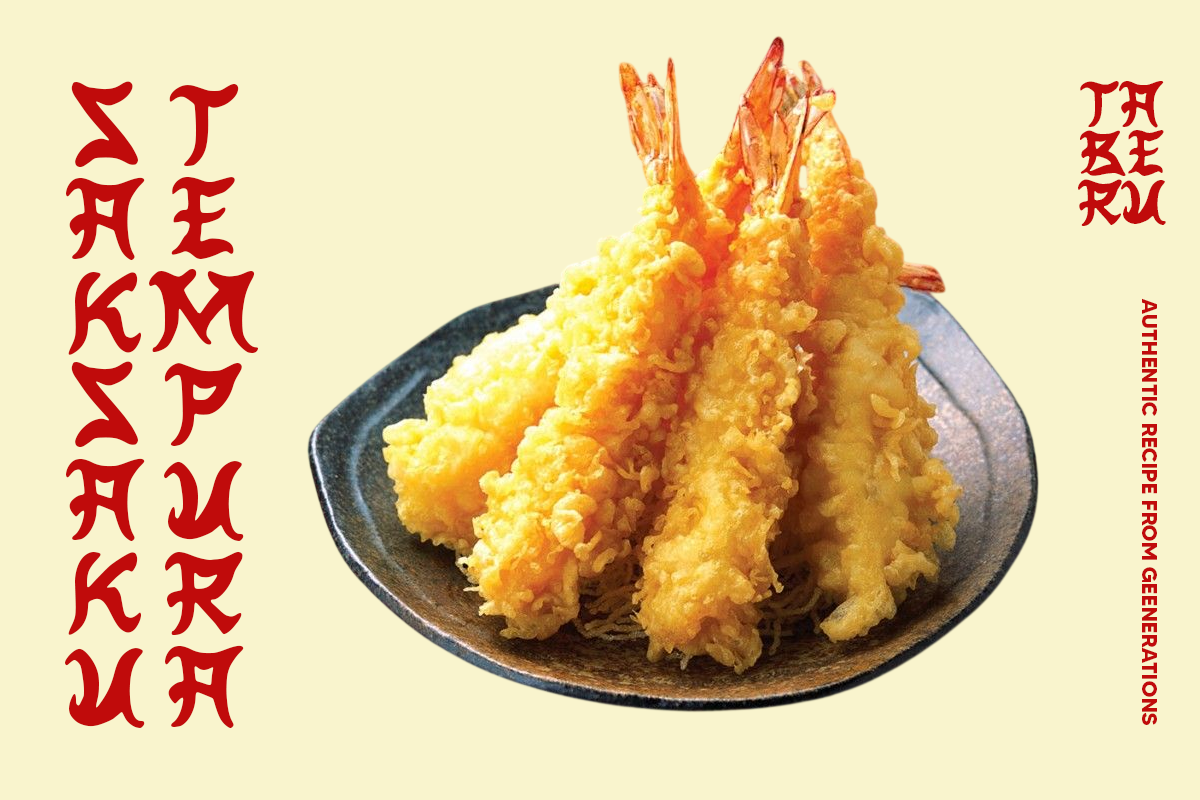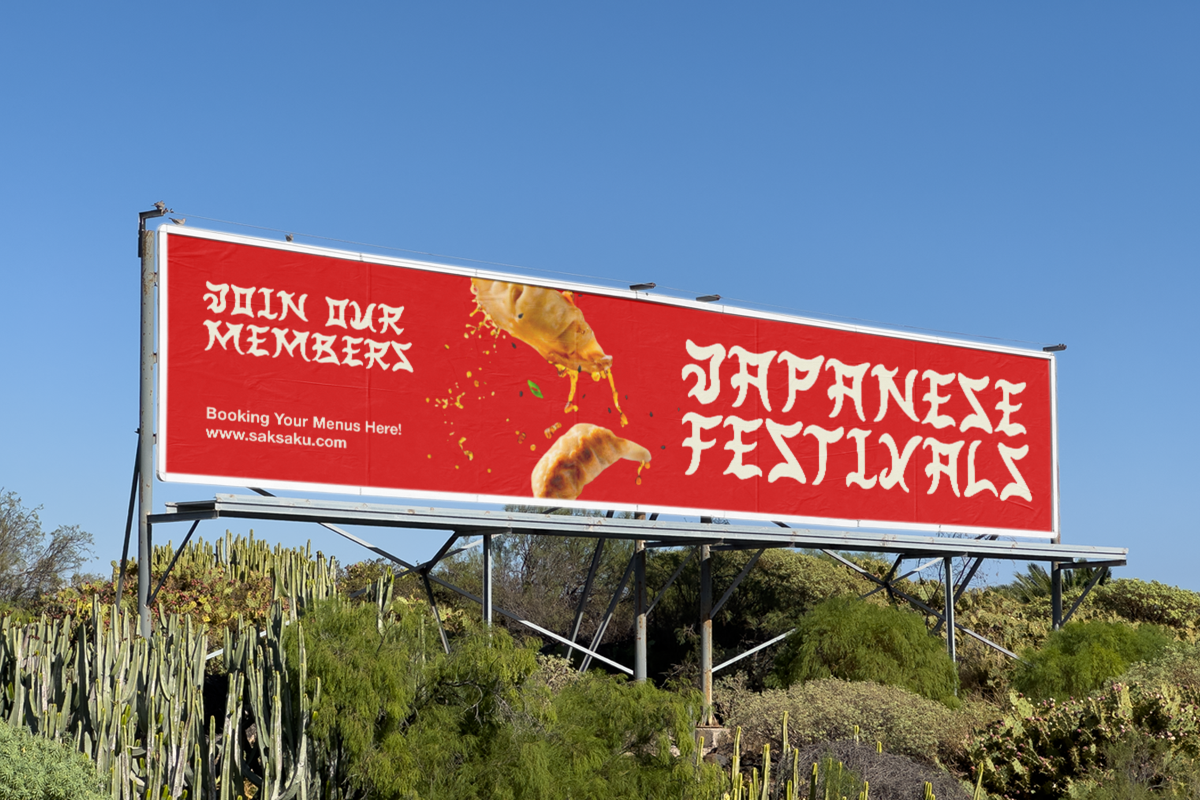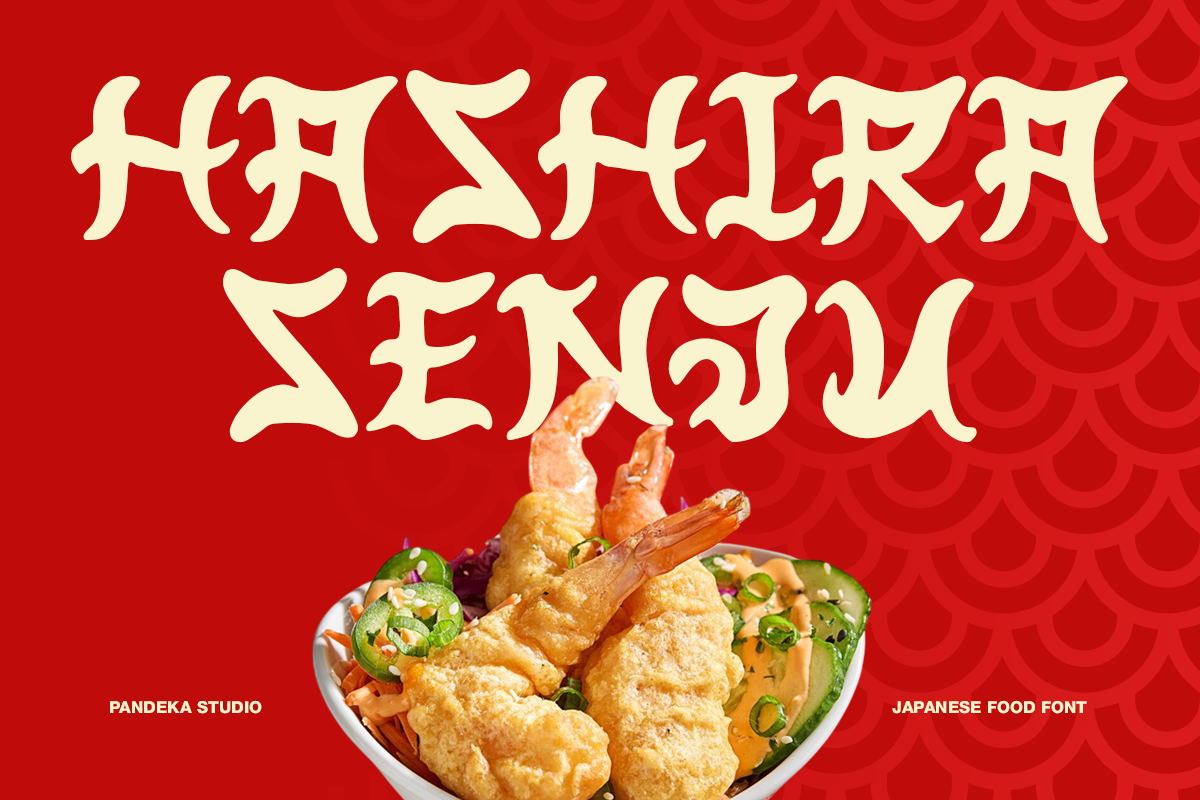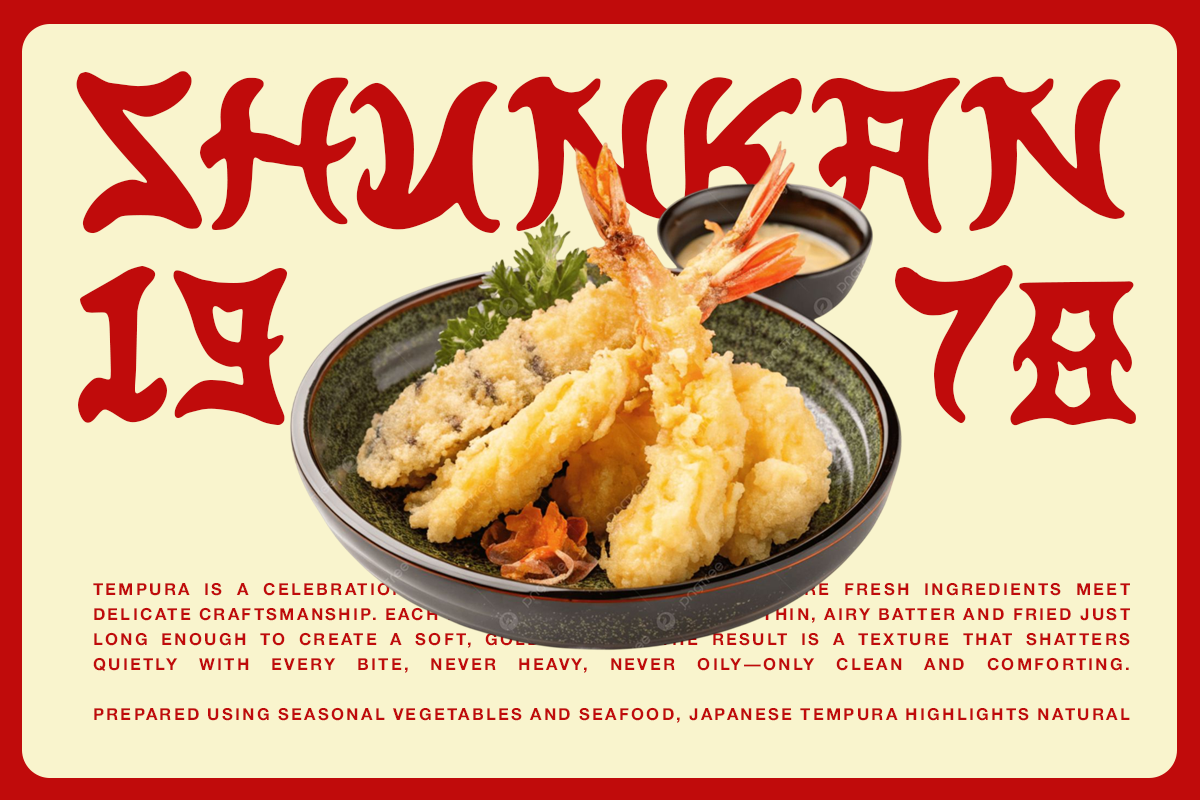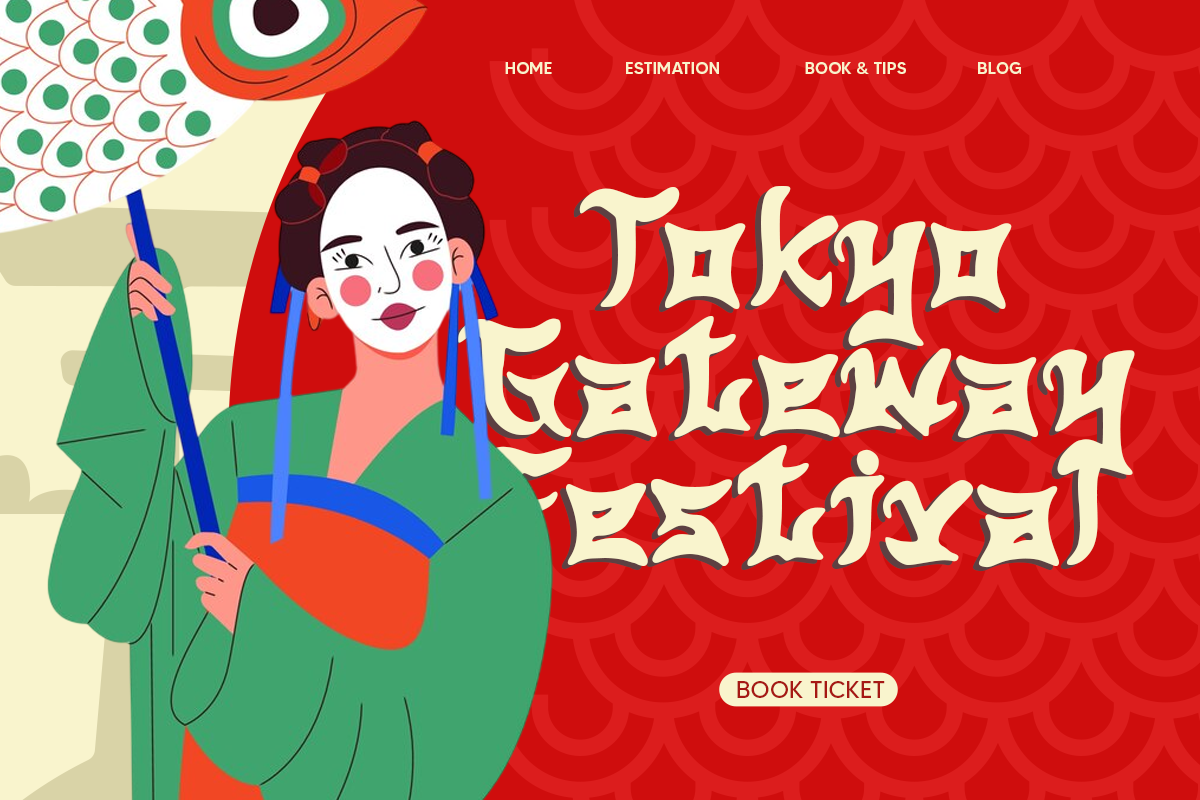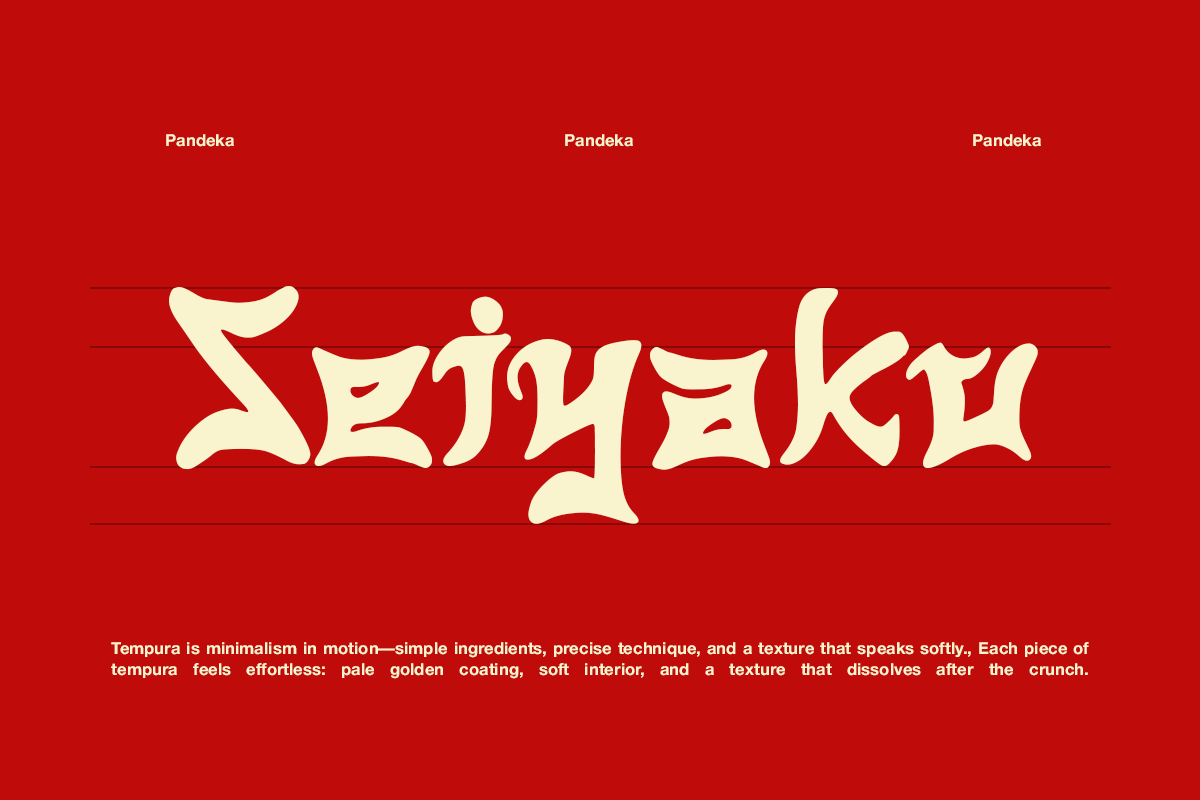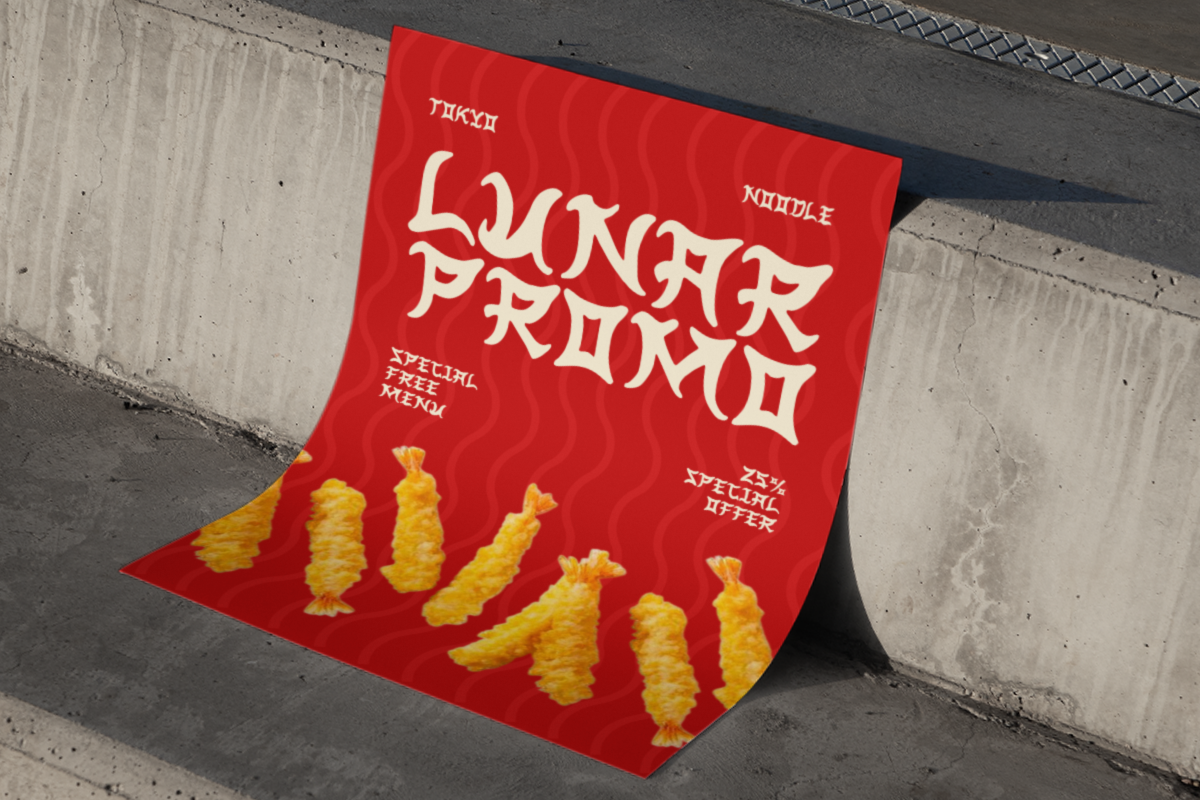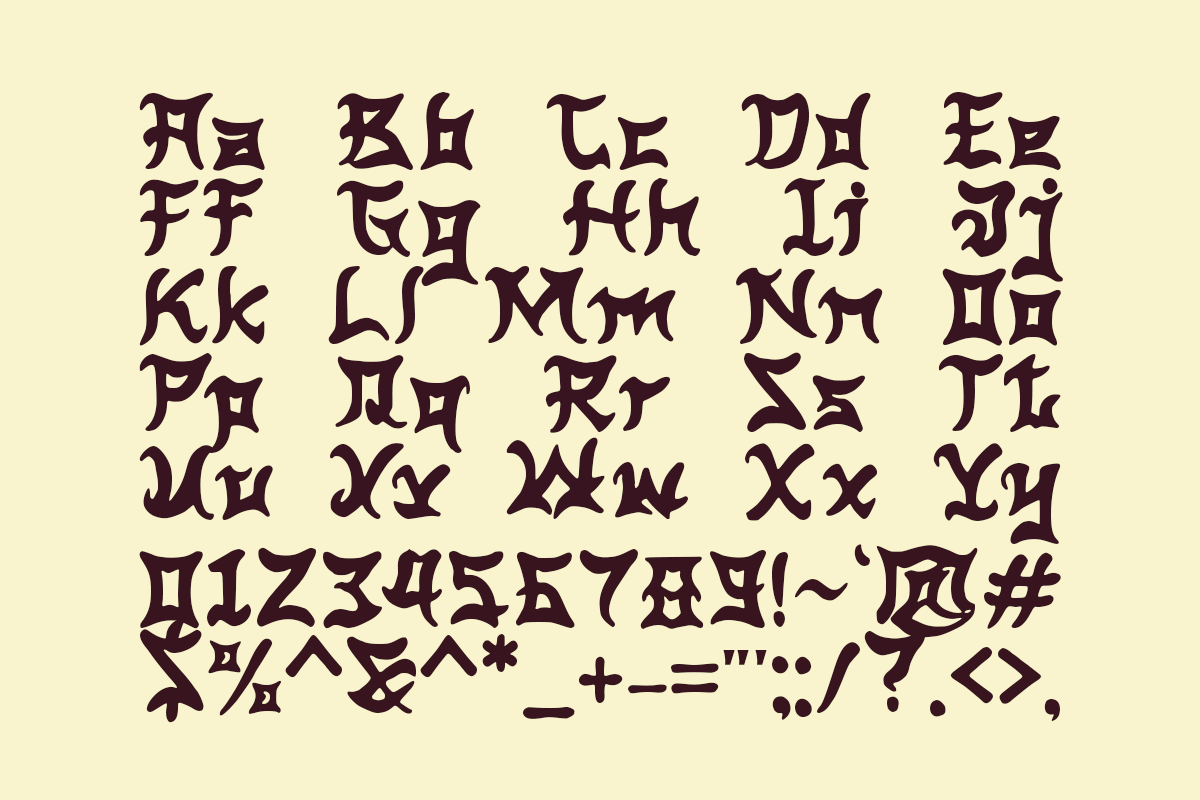
Hashira Senju - Japanese Food Font
Hashira Senju is a bold and expressive display font inspired by traditional Japanese calligraphy and modern street food culture. Its sharp strokes, dynamic forms, and handcrafted feel bring a strong oriental character that instantly captures attention and delivers an authentic Japanese atmosphere. This font creates a powerful visual impact while maintaining readability for headlines and branding purposes.
Designed in a single Regular style, Hashira Senju is perfect for ramen shops, sushi brands, street food packaging, restaurant signage, festival posters, menu designs, and Asian-themed branding. Whether you are building a bold food identity or creating eye-catching promotional visuals, Hashira Senju adds cultural depth, energy, and distinctive flavor to your typography.
- 1 Style: Regular
- Full Character Set: Uppercase, lowercase, numbers, symbols, and punctuation